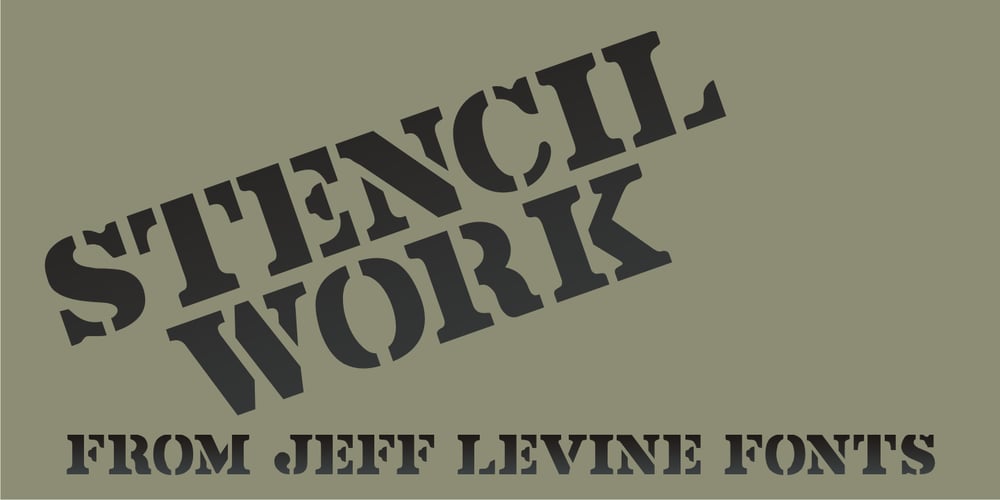
Stencil Work JNL Font Family was designed by Jeff Levine and published by Jeff Levine. Stencil Work JNL contains 1 styles and family package options. Stencil Work JNL was re-drawn from a vintage paper stencil with one inch high Roman letters and numbers, often found in stationery, drug and variety stores in the 1950s through the 1980s.